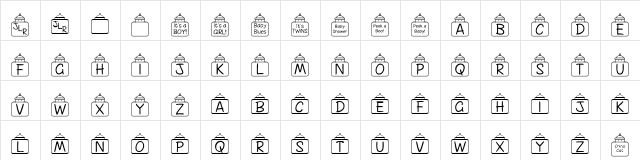
FL Peekababy! Regular
Design Context for FL Peekababy! Typeface
FL Peekababy! is a composed and adaptable typeface that performs quietly and consistently across a wide range of design contexts.